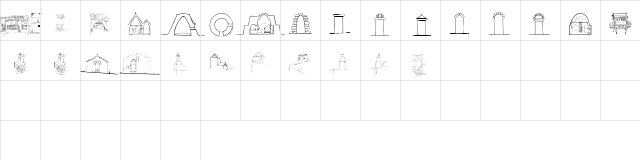
Arambas Normal
Design Context for Arambas Typeface
Arambas is a composed and adaptable typeface that performs quietly and consistently across a wide range of design contexts.